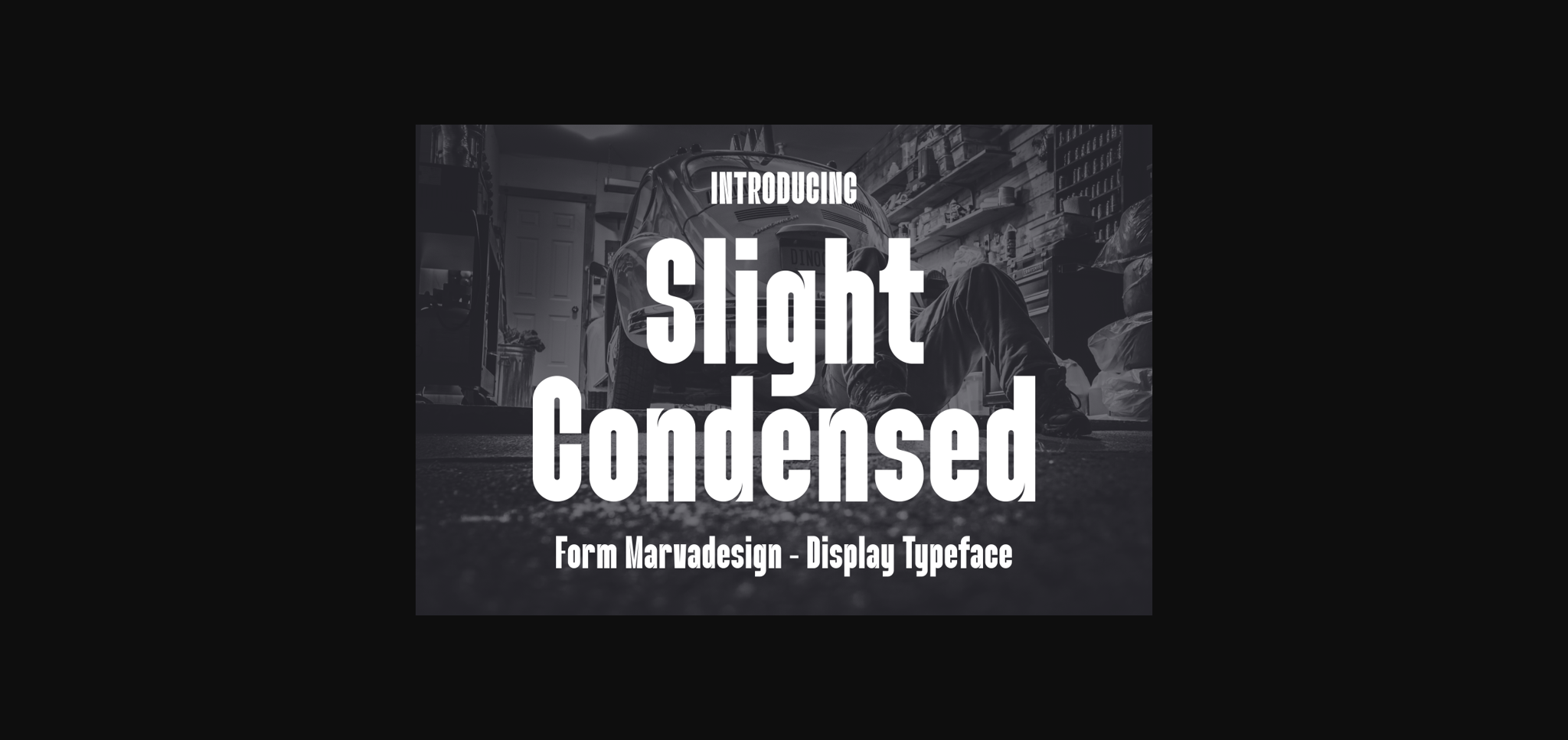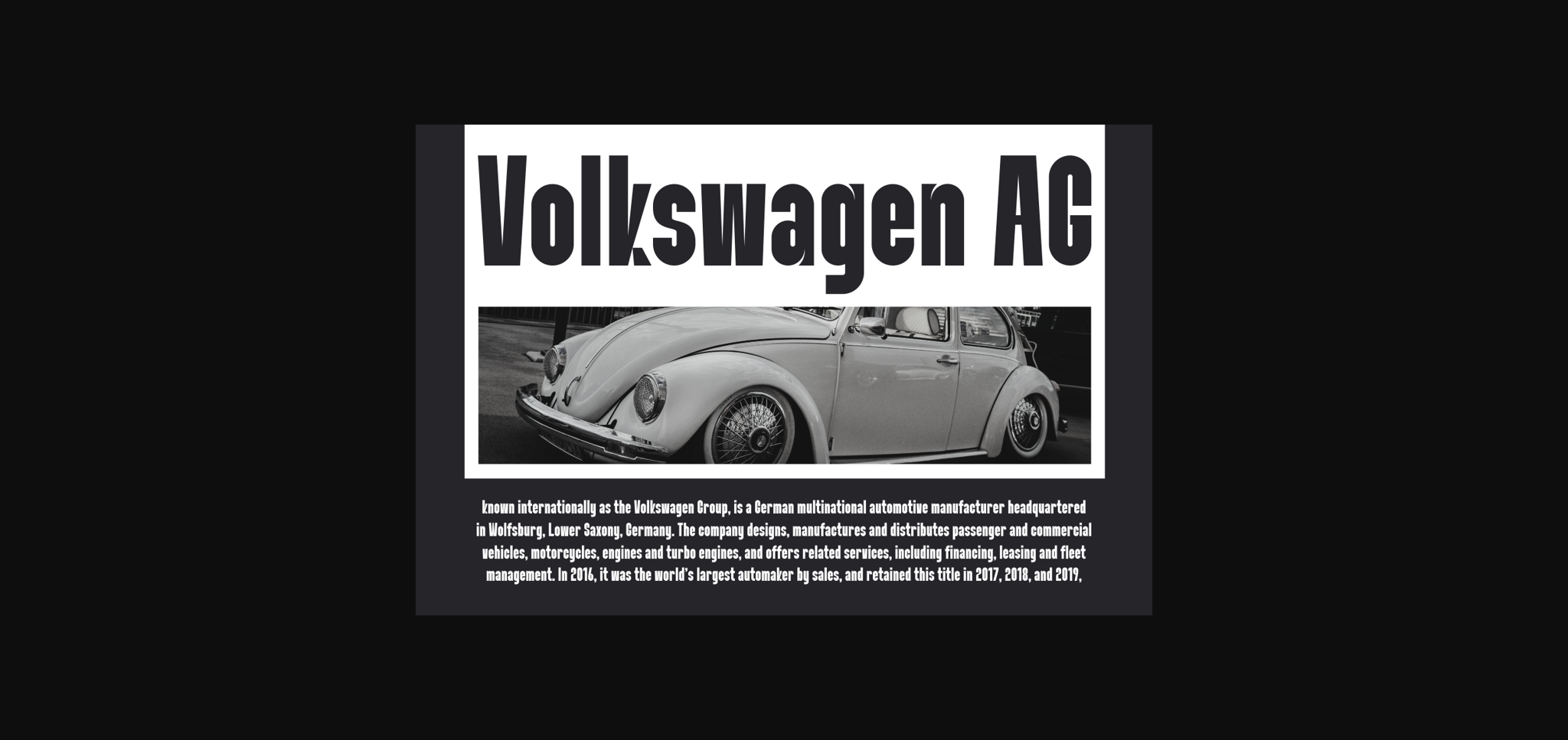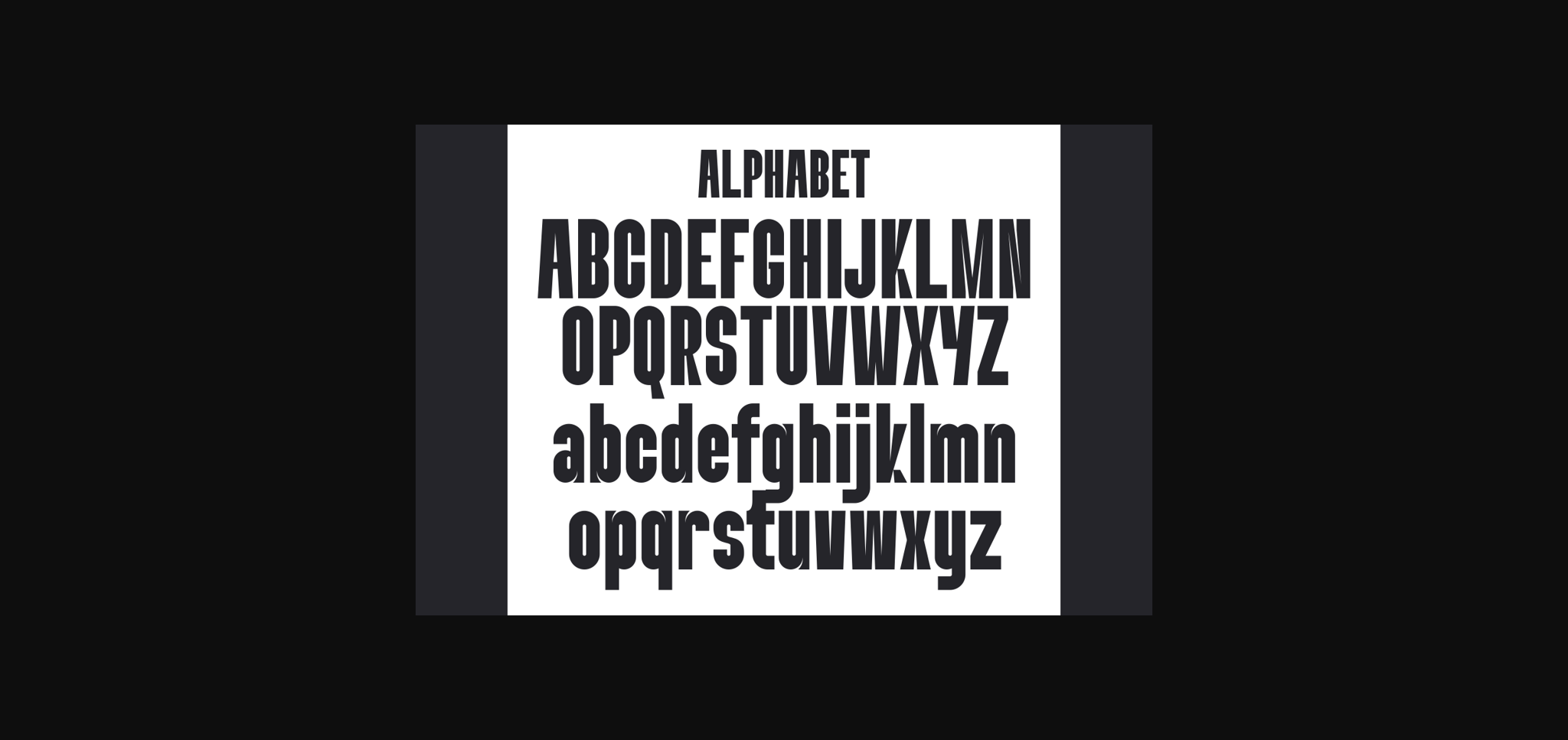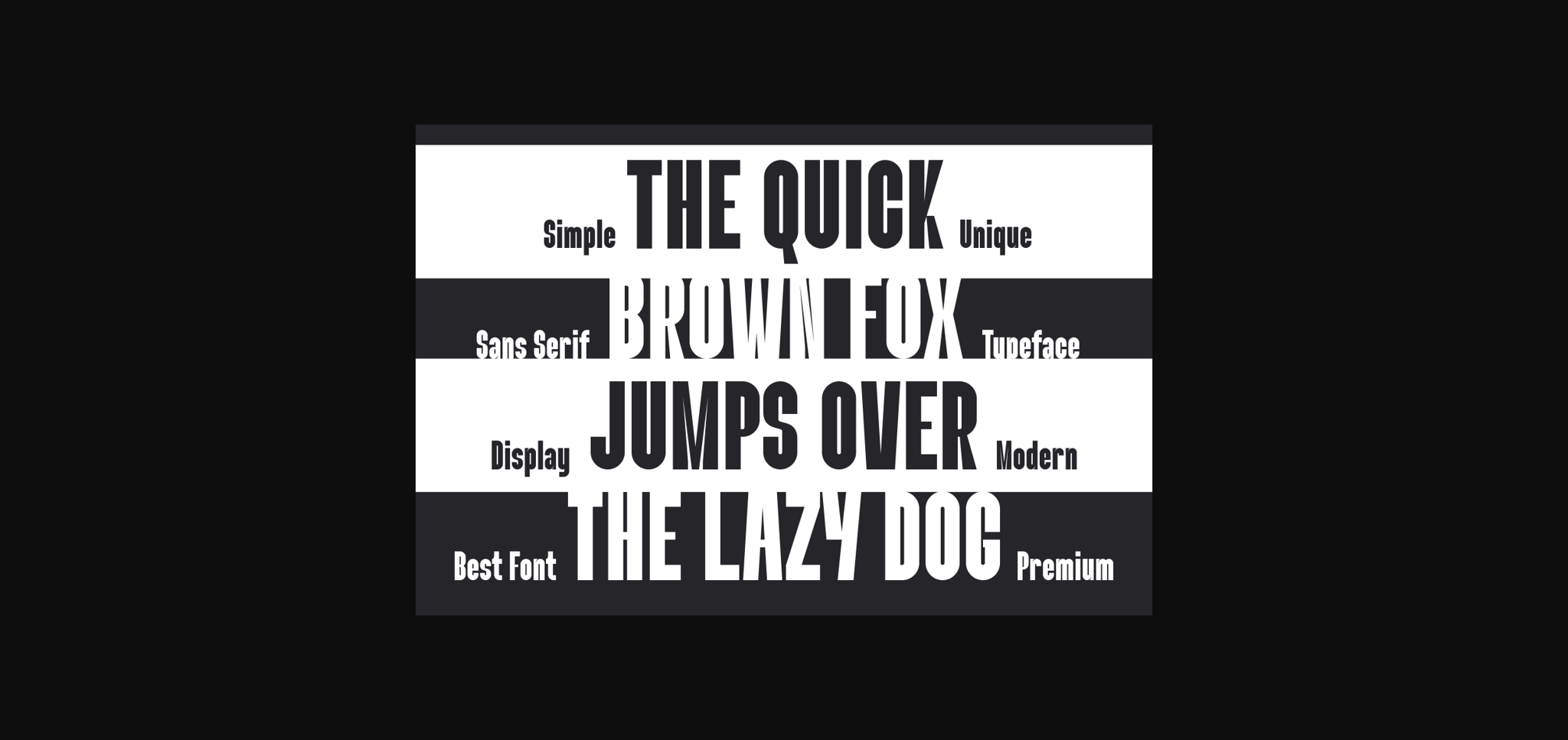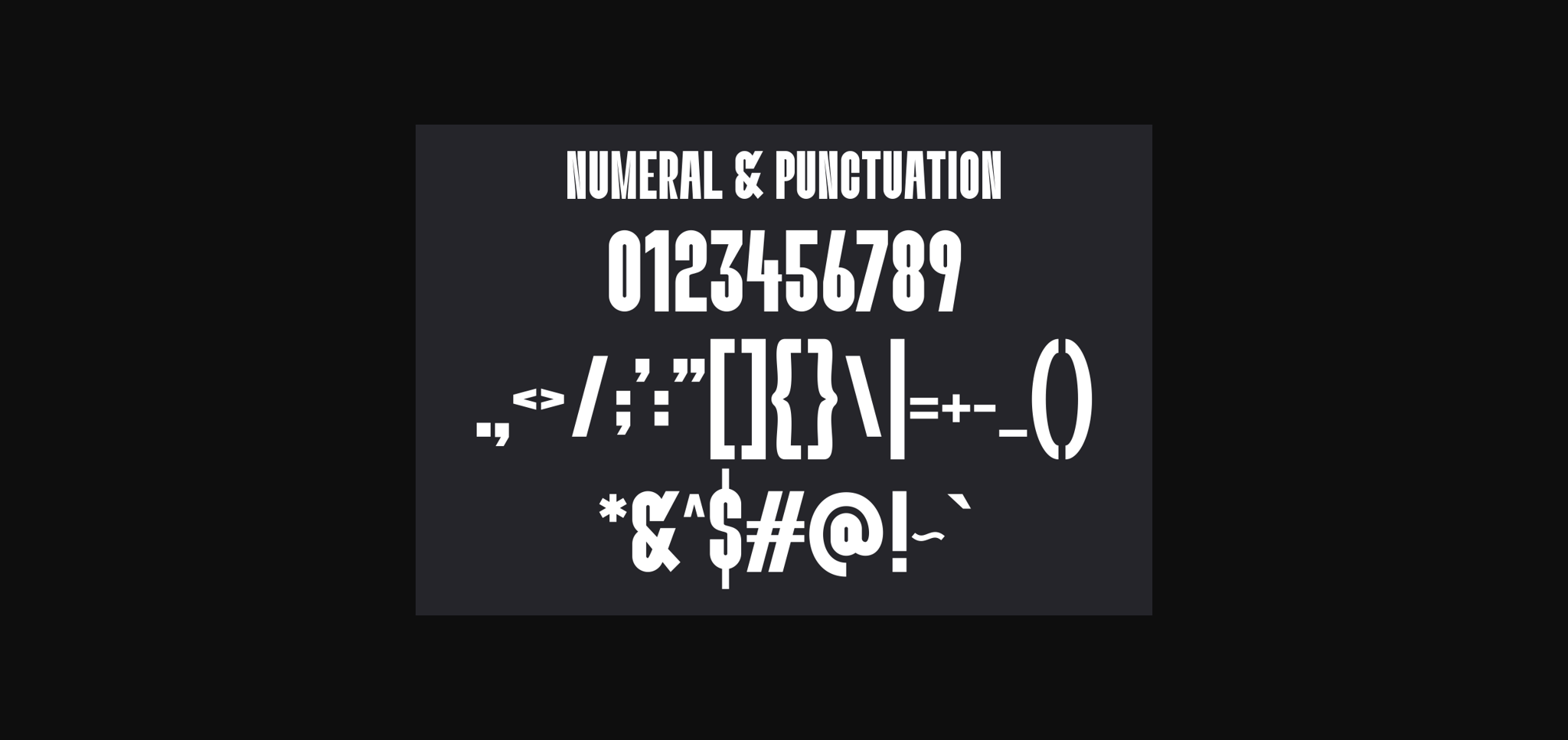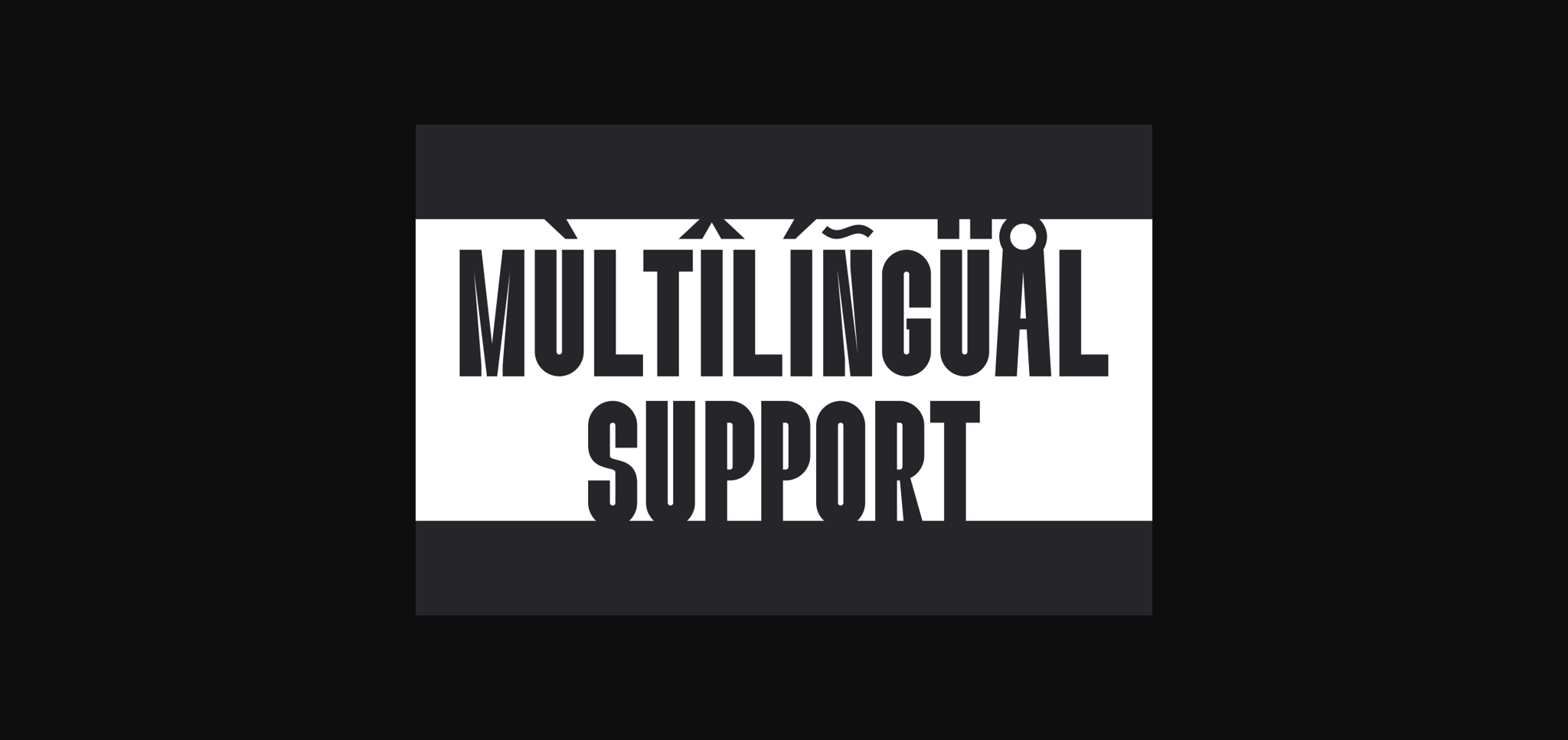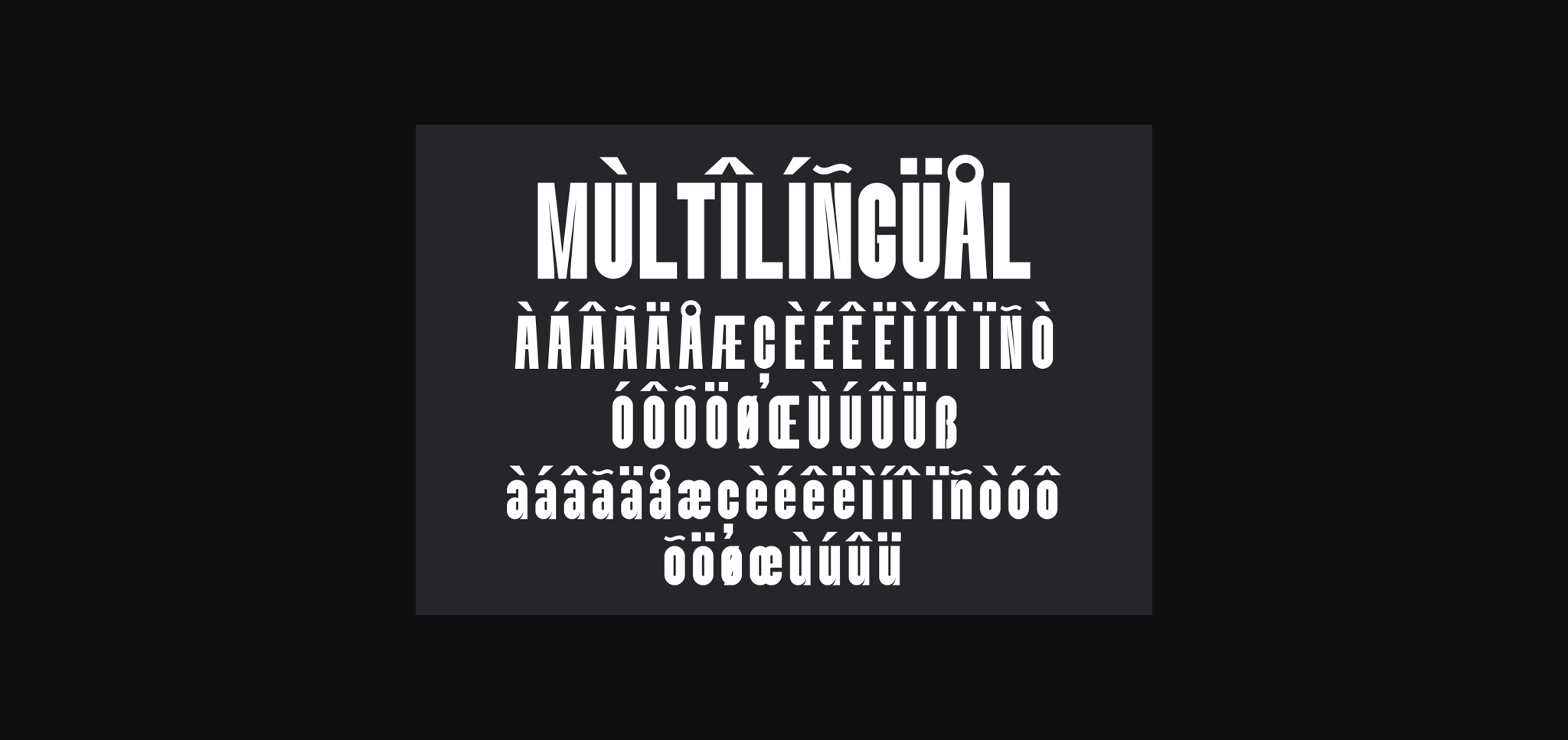
About Slight Font
Slight is a modern sans-serif font that epitomizes clean, sleek design with a touch of sophistication. Its balanced letterforms and minimalistic style create a versatile aesthetic suitable for various projects. Ideal for those seeking a contemporary and polished typeface, Slight brings a sense of modern elegance to your designs.